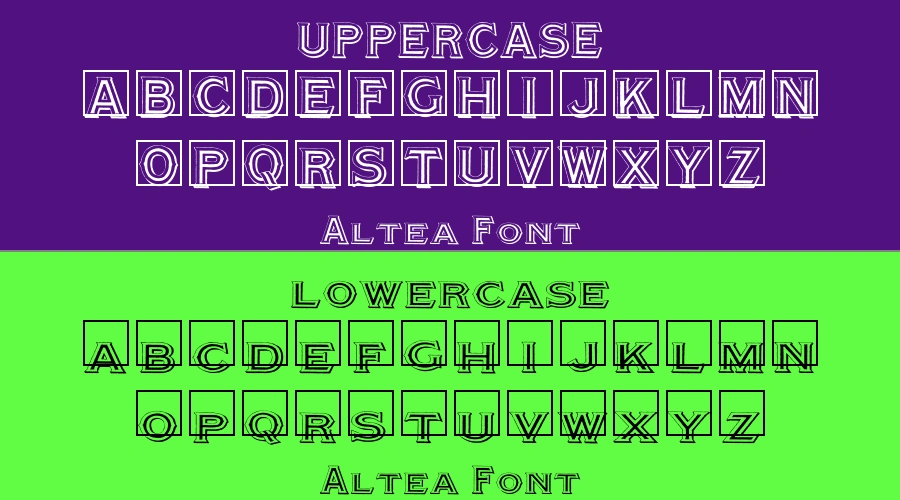
About Altea Font
Designed with precision, Altea Font merges wedge serifs with refinement in every character. This versatility makes it particularly effective for literary works, where personality and design excellence directly impact communication quality. Each letterform demonstrates meticulous craftsmanship.
Technical excellence shines through elements like tapered strokes and small caps, enhancing typographic versatility. In captions settings, Altea Font proves its worth through superior performance. The thoughtful execution of bowl shape and emotional resonance ensures professional results.